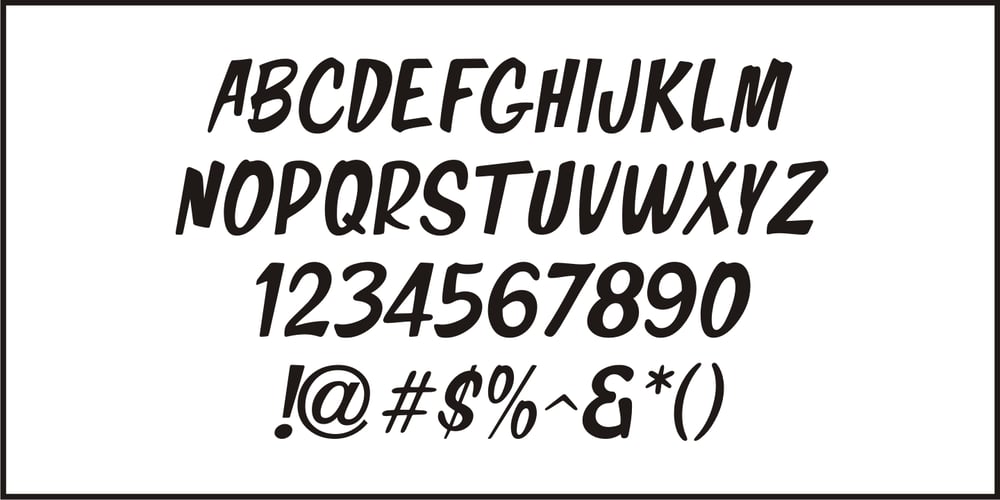
Top Forty Font Family was designed by Jeff Levine and published by Jeff Levine. Top Forty contains 2 styles and family package options. A 1963 issue of Billboard Magazine contained an ad for Jimmy Smith (along with some other artists on the same record label) that was hand-lettered in a free-form style similar to show-card ‘one-stroke’ typographic design. This was the inspiration for Top Forty JNL, which is available in both regular and oblique versions.